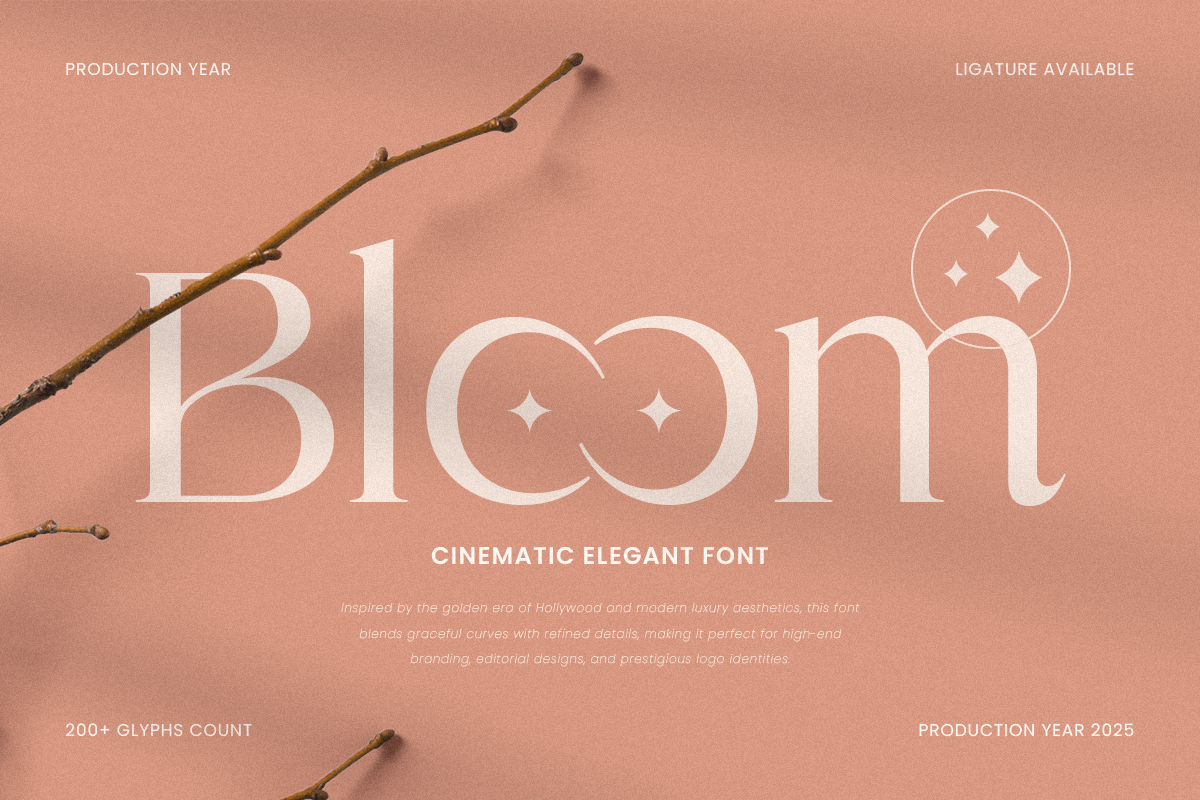
Bloom
-Cinematic Elegant FontBloom - Cinematic Elegant Font
Bloom is an elegant serif display font inspired by classic cinema and luxury editorial typography. With its refined letterforms, graceful curves, and high-contrast strokes, Bloom adds a touch of drama and class to any project. Perfect for movie titles, fashion branding, wedding invitations, magazines, and upscale packaging, it creates visual storytelling with elegance and clarity.
Whether you're crafting a high-end logo or designing captivating editorial layouts, Bloom delivers a strong presence with a delicate flair. Its timeless aesthetic allows it to blend effortlessly into both vintage-inspired and contemporary visuals. Bring your designs to life with Bloom—a cinematic font that radiates beauty and sophistication in every detail.
Bloom Cinematic Elegant Font Features:
Elegant Serif Display Style
Ideal for Fashion, Film, Branding & Editorials
Punctuation, Numbers, and Symbols
Opentype Ligature Features